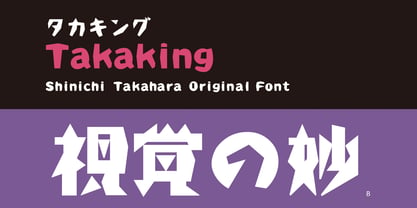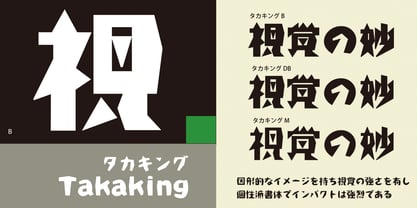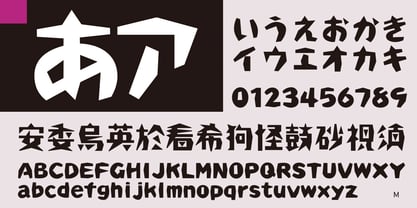
The Takaking Font Family was designed by and published by Taka Design Production. Takaking contains 3 styles and family package options. More about this family
It has an imposing appearance, as unmoving as a mountain and as firm as a rock. It is one of the unique typefaces with geometrical and graphic images and visual strength.
Takaking